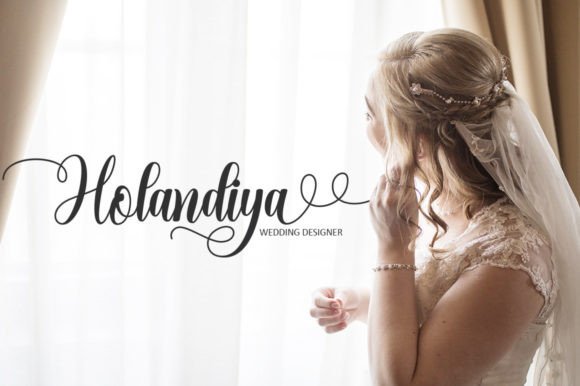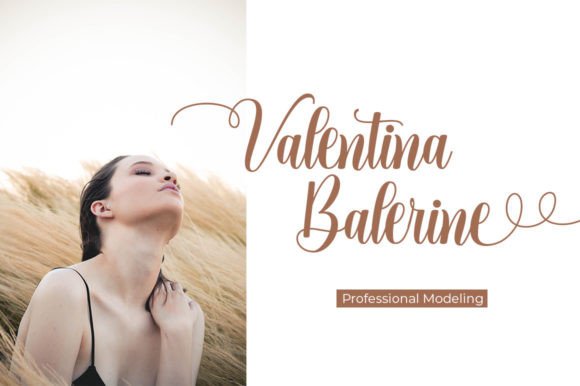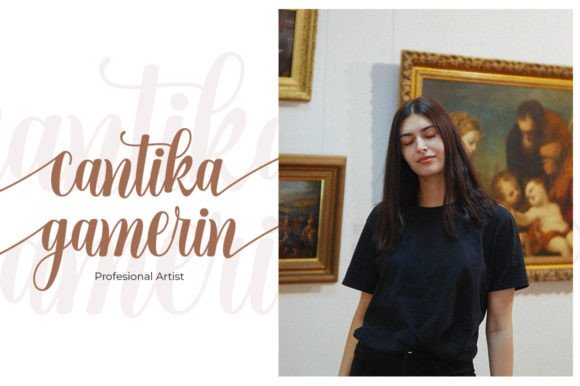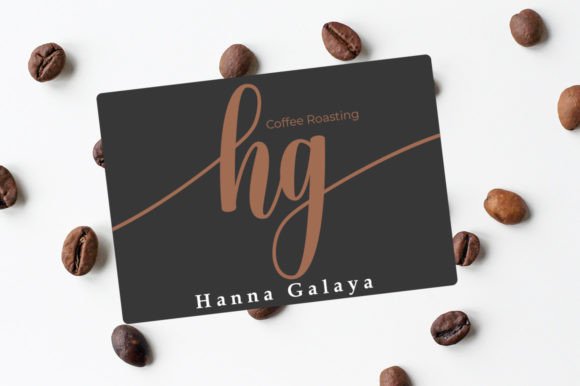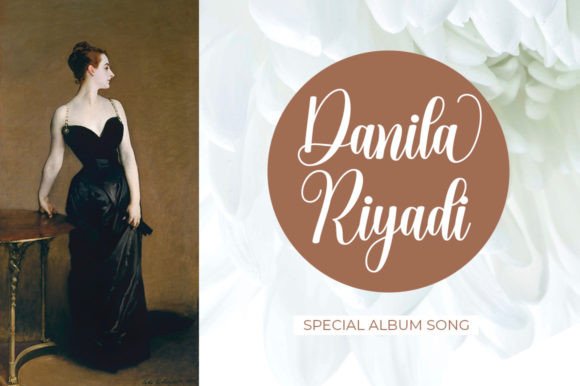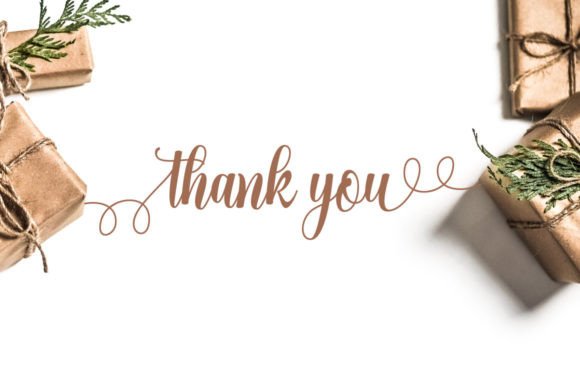
Introduction to Paradise Garden Font
Imagine you’re brainstorming ideas for a new creative project, and you need the perfect font to elevate your design. The search is on, and you stumble upon a hidden gem – the Paradise Garden Font. This stunning handwritten script font is a game-changer for designers, offering a unique blend of elegance and modernity that’s sure to captivate your audience.
With its impeccable form and timeless classic calligraphy inspiration, the Paradise Garden Font is the perfect addition to any design project. Whether you’re working on a personal or professional project, this high-quality font is a valuable resource that’s sure to add a touch of sophistication and class.
But what really sets the Paradise Garden Font apart is its versatility – it’s perfect for a variety of creative projects, from wedding invitations to social media graphics, and even free download options for personal use. With a transparent background and high-quality design, you can trust that this font will look great on any project, every time.
Key Features of Paradise Garden Font
- Unique, hand-drawn style with intricate details and ornaments, ideal for adding a touch of elegance to your design.
- Features a transparent background, allowing for easy integration into any design project.
- Designed at a high resolution (300 DPI) for crisp and clear display, suitable for both digital and print projects.
- Perfect for use in various design contexts, from wedding invitations and stationery to branding and packaging design.
Honest Review: Paradise Garden Font
I recently stumbled upon the Paradise Garden Font while searching for a design resource for my creative project. The font caught my eye with its beautiful and intricate design. As a designer, I appreciate high quality fonts that can elevate a project and make it stand out.
Here are some things that work well with the Paradise Garden Font:
- ✨ High quality design: The font is well-designed and has a unique style that can add a touch of elegance to any project.
- ✨ Transparent background: This makes it easy to use the font on any background without worrying about it getting lost or distorted.
- ⚠️ Limited character set: The font only comes with a limited set of characters, which might not be suitable for long-form content or complex projects.
- ⚠️ Not ideal for small text: The font is best used for larger text sizes, as it can become difficult to read when used for small text.
Overall, the Paradise Garden Font is a beautiful and high-quality design resource that can add a touch of elegance to any project. While it has some limitations, it’s still a great option for designers who need a unique and eye-catching font for their creative project.
Experiment with different font sizes and styles to get the most out of the Paradise Garden Font. Use it in combination with other design resources to create unique and eye-catching designs.
The Paradise Garden Font is perfect for creative projects such as graphic design, digital art, and illustrations. Its high-quality design and transparent background make it ideal for use in presentations, documents, and websites.